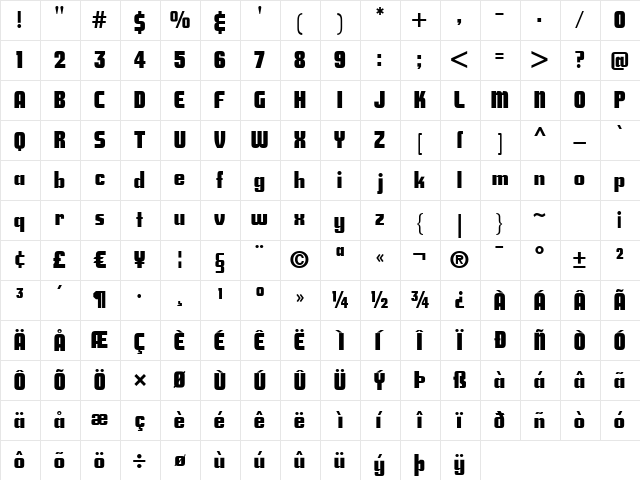
Savings Bond Regular
Design Context for Savings Bond Typeface
Savings Bond is a composed and adaptable typeface that performs quietly and consistently across a wide range of design contexts.